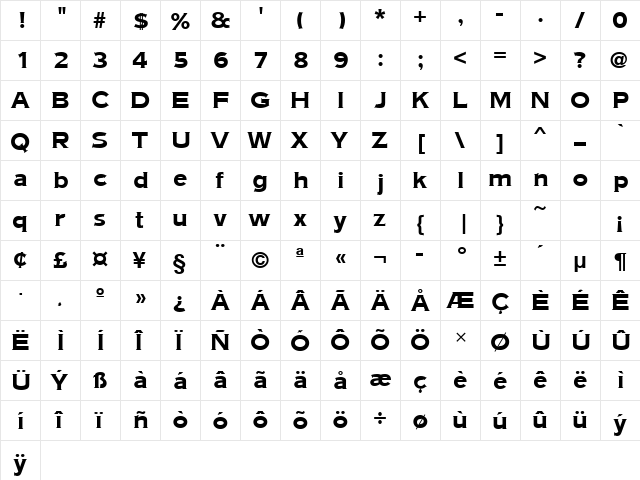
AmericanGotURWTBol Regular
Design Context for AmericanGotURWTBol Typeface
AmericanGotURWTBol offers clean, dependable letterforms without strong stylistic allegiance, making it a practical choice for designers who need flexibility.
Pro Tip: Use AmericanGotURWTBol in both headline and body roles to test its range before committing to a single application.